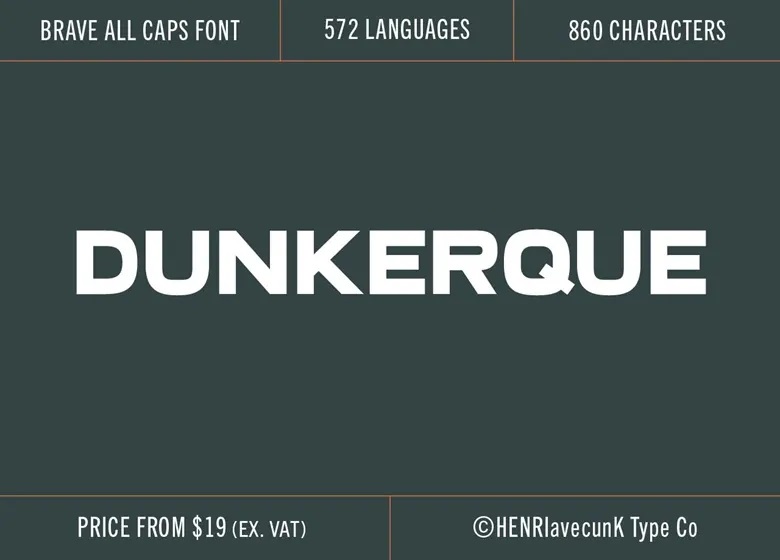
Dunkerque Font
Dunkerque is an all-caps sans serif font made to stand out. Its bold, structured letters show confidence and strength, making it a great choice for headlines, logos, and branding that need to be noticed. Dunkerque includes 860 characters and supports 572 languages, making it a versatile choice for global use. Designers can keep a strong, consistent look no matter where their work appears.
The all-caps style gives Dunkerque a strong presence. Each letter is balanced, so the font feels both modern and timeless. Its bold weight makes it easy to read and highlights its strength. Dunkerque grabs attention right away and leaves a strong impression in both print and digital designs.